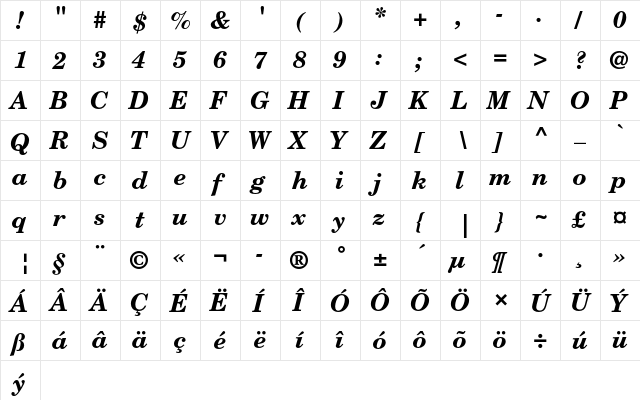
New Century Schoolbook CE Bold Italic Font Preview
Design Context for New Century Schoolbook Typeface
New Century Schoolbook offers clean, dependable letterforms without strong stylistic allegiance, making it a practical choice for designers who need flexibility. Its italic angle brings a sense of urgency and motion to the letterforms. The heavy weight commands attention and anchors typographic hierarchies.
Pro Tip: Use New Century Schoolbook for emphasis, pull quotes, and subheadings where its slanted energy can add rhythm to the layout.